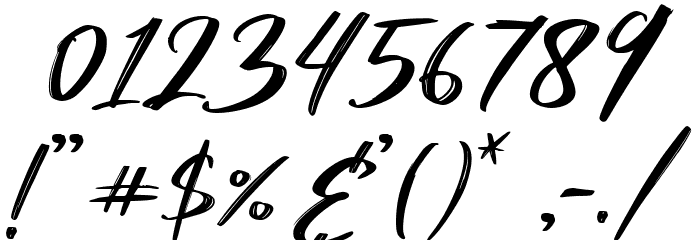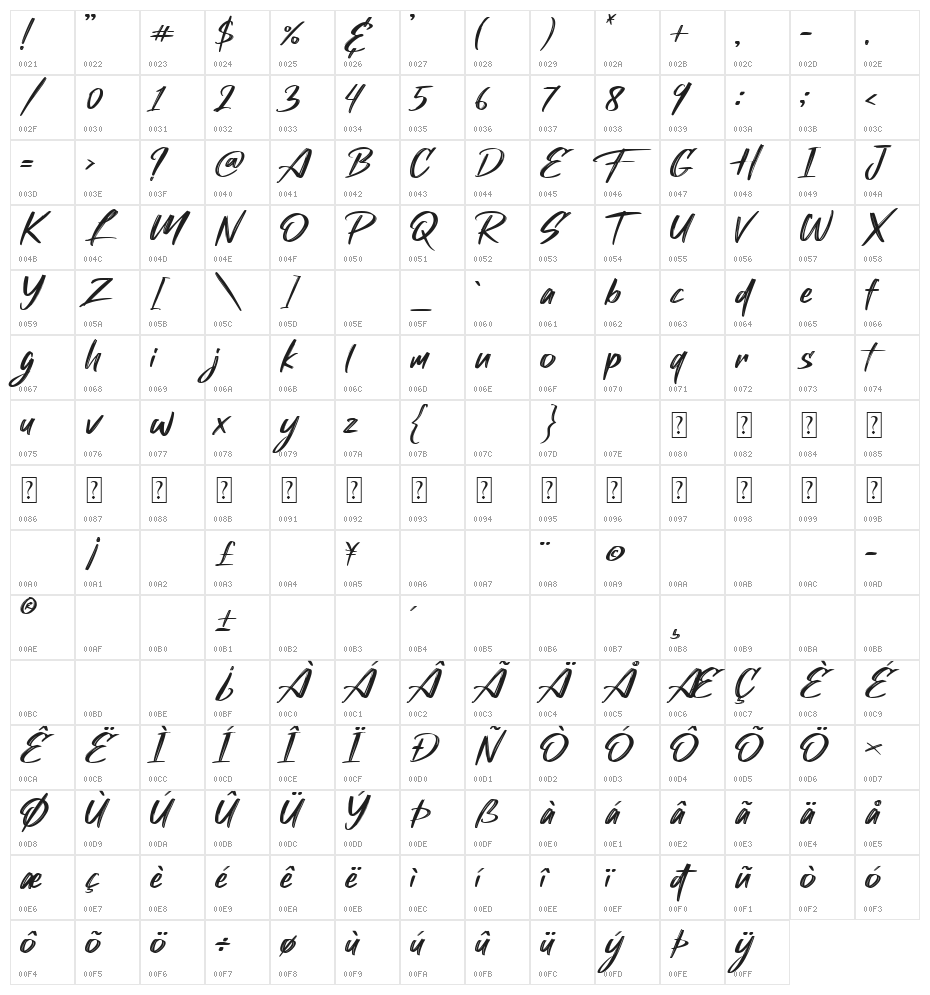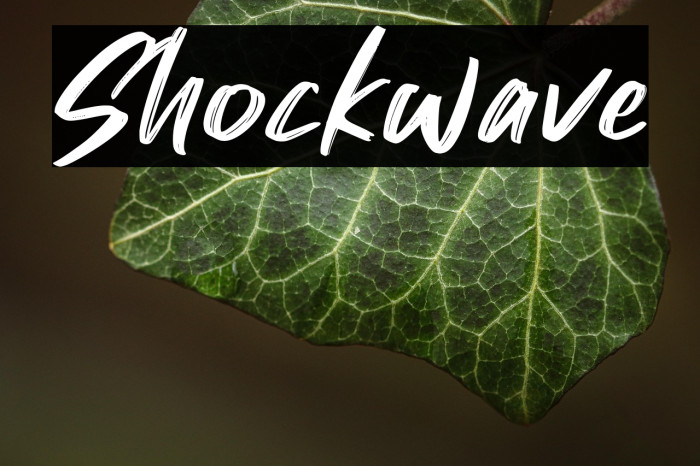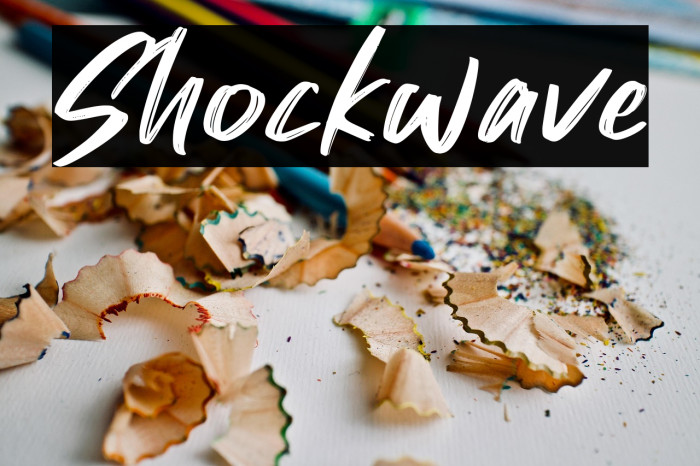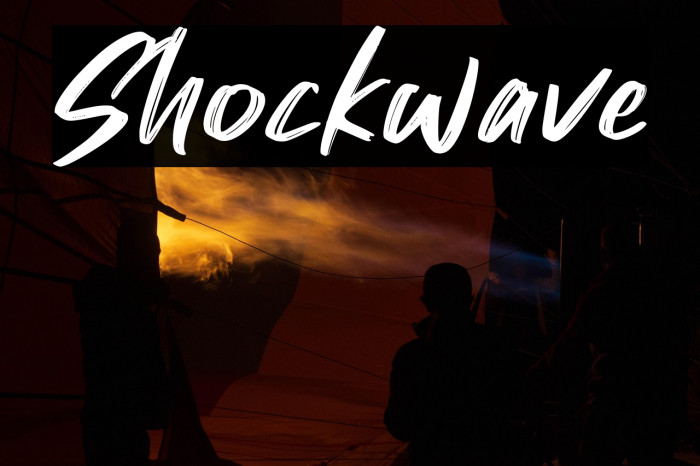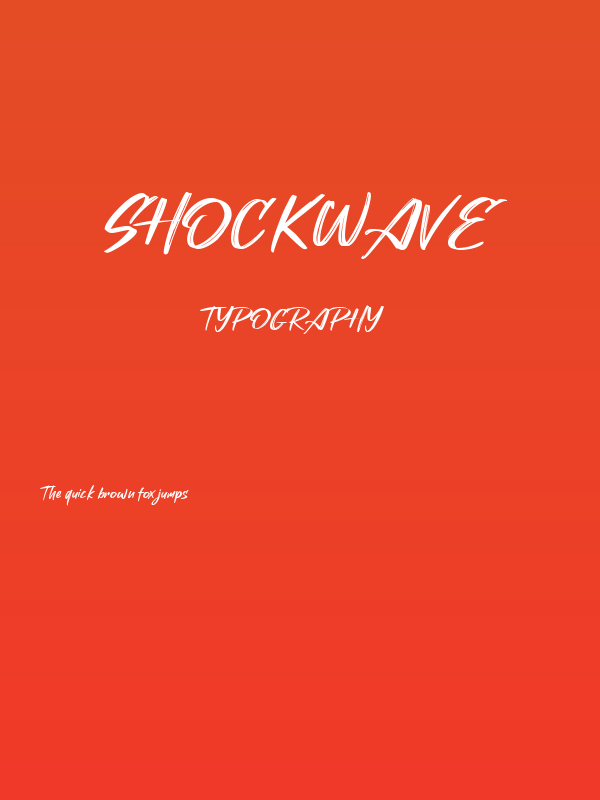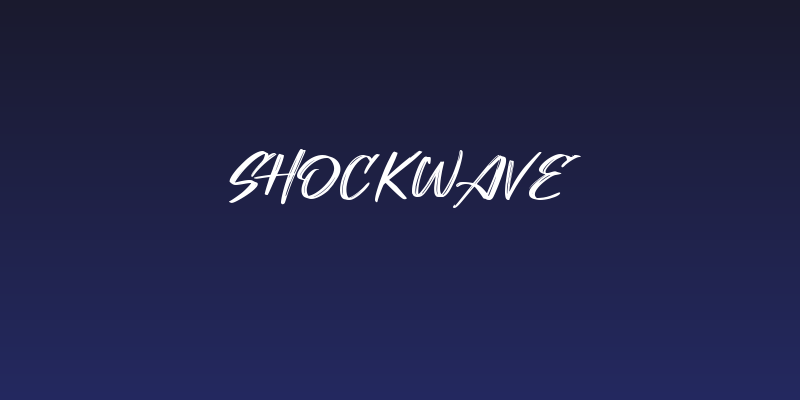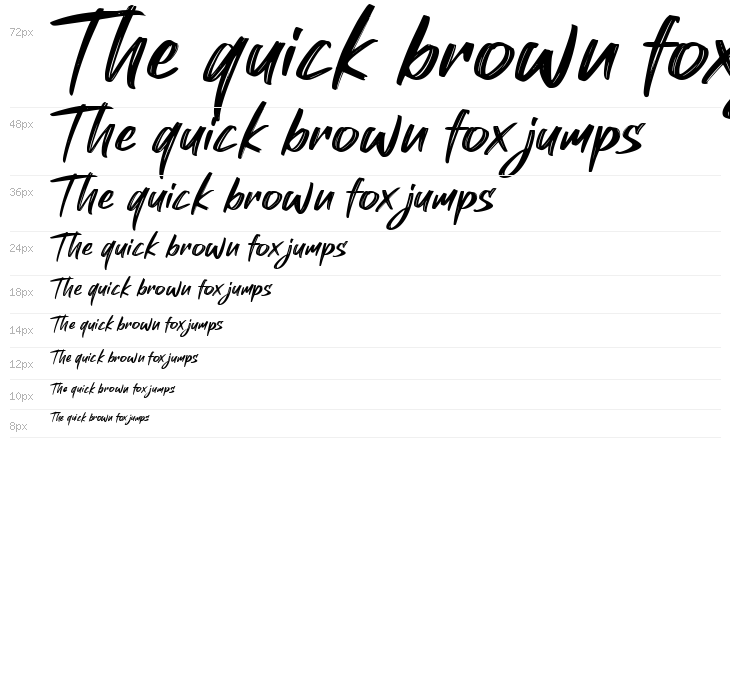
Shockwave Font
Shockwave Description
This dynamic and energetic font features a bold, brush-like script that exudes a sense of movement and flair. The letters are crafted with a natural, hand-drawn quality, showcasing varying stroke widths that add depth and character. The uppercase letters are slightly slanted, enhancing the font's lively and informal style. The lowercase letters maintain a consistent flow, complementing the uppercase with their smooth curves and sharp edges. Numerals and special characters are equally expressive, maintaining the font's overall aesthetic. This font is perfect for projects that require a touch of creativity and boldness.